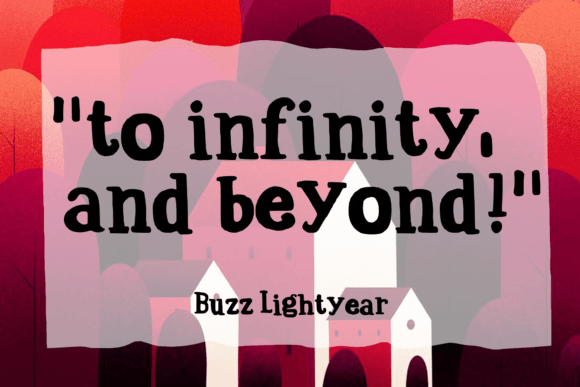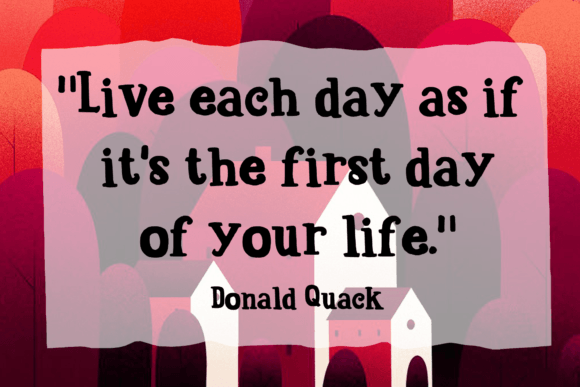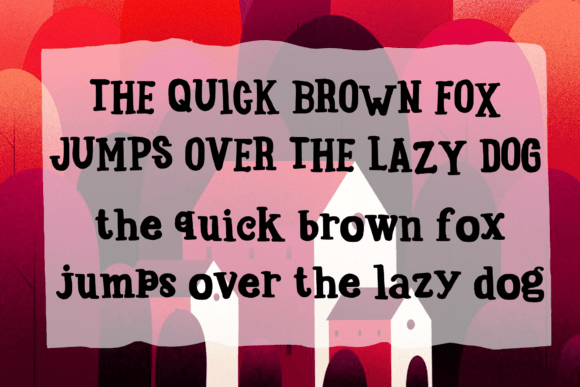
The Ultimate Guide to Fat Serif Font: Adding a Touch of Whimsy to Your Designs
I’ll never forget the time I was working on a cartoon-themed project for a client, and I just couldn’t find the right font to bring the design to life. The client wanted something fun, quirky, and playful, but I was stuck in a font rut. That’s when I stumbled upon Fat Serif, a handwritten display font that instantly captured the playful spirit of the project. In this article, I’ll share my love for Fat Serif, its features, and how to make the most of it in your designs.
An Honest Review of Fat Serif
What I Love About Fat Serif ✨
- ✅ Its incredibly versatile style, perfect for a wide range of design projects
- ✅ The irregular baseline adds a touch of whimsy and playfulness to any design
- ✅ Fat Serif is a great choice for cartoon-related designs, kids’ school projects, and presentations
- ✅ The font is easy to read, even in larger sizes
- ⚠️ Fat Serif may not be the best choice for body text or long paragraphs, as it’s primarily designed for display purposes
- ⚠️ Some users may find the irregular baseline a bit distracting or unconventional
The Backstory of Fat Serif
Fat Serif was designed with one goal in mind: to create a fun, quirky font that would add a touch of whimsy to any design. The designer, inspired by the world of cartoons and children’s books, set out to create a font that would be both playful and versatile. With its irregular baseline and bold, rounded letters, Fat Serif was born.
| Font Name | Fat Serif Font |
| Author | MVMET |
Q: What is Fat Serif, and what is it used for?
A: Fat Serif is a fun and quirky handwritten display font with an irregular baseline. It’s perfect for cartoon-related designs, kids’ school projects, presentations, greeting cards, and anything that needs a casual touch.